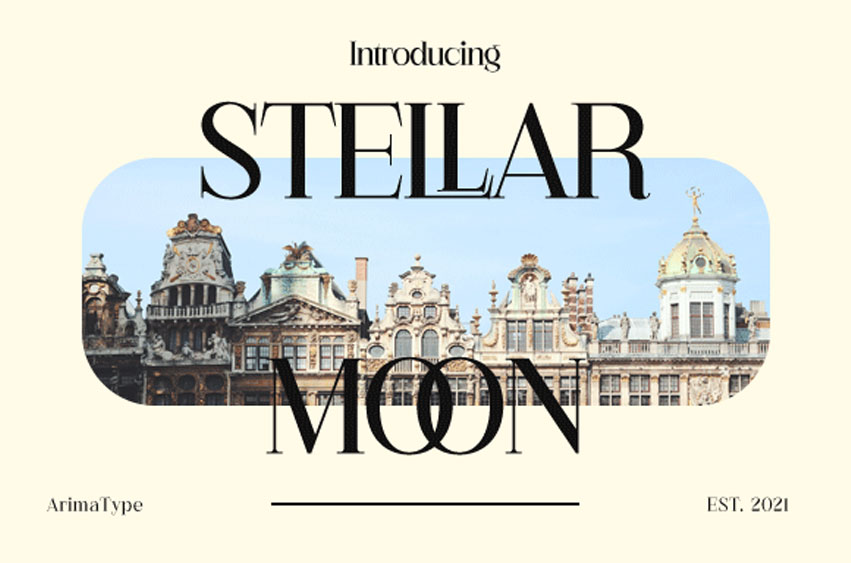
Stellar Moon Font
Stellar Moon Font is an authentic, bold, and simple serif font.
Whatever the topic, this font will be a wonderful asset to your font library, as it has the potential to enhance any creation.